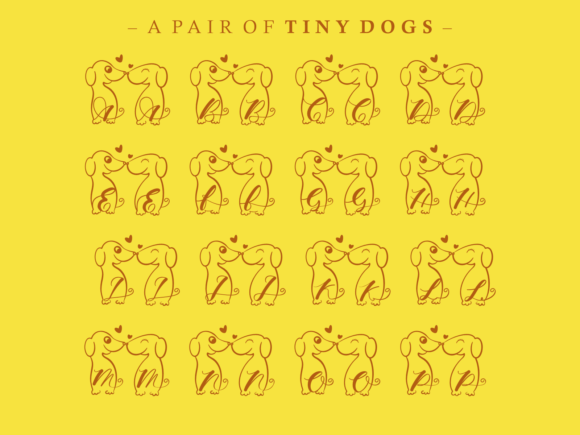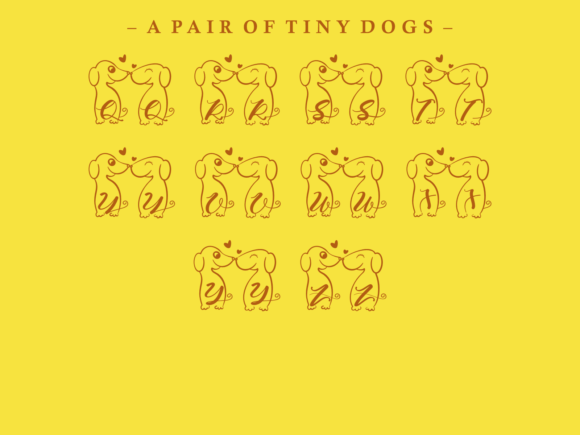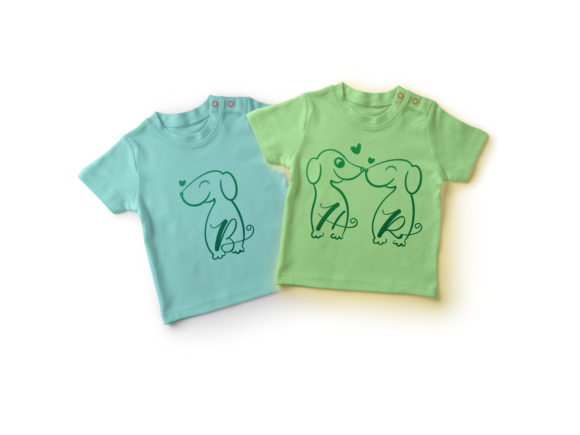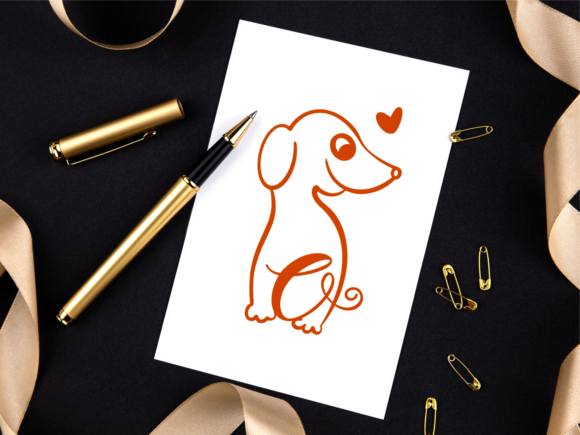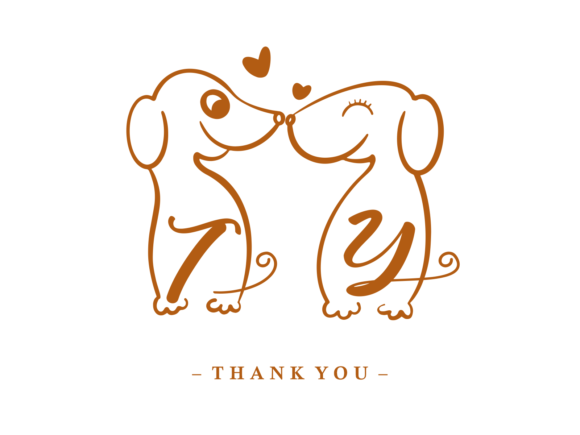
A Pair of Tiny Dogs Font: The Cutest Decorative Font for Your Designs
Are you tired of using the same old fonts for your designs? Look no further! A Pair of Tiny Dogs Font is here to add a touch of cuteness to your creations. This adorable decorative font is perfect for designers and crafters who want to add a personal touch to their work. In this article, we’ll explore the features of A Pair of Tiny Dogs Font and how you can use it to take your designs to the next level.
What is A Pair of Tiny Dogs Font?
A Pair of Tiny Dogs Font is a unique and charming decorative font that features, you guessed it, a pair of tiny dogs! This font is probably the cutest decorative font you will ever come across, and it’s perfect for adding a playful touch to your designs. The font is made up of adorable dog illustrations that are sure to bring a smile to anyone’s face.
Features of A Pair of Tiny Dogs Font
- Cute and Playful Design: The font features a pair of tiny dogs that are sure to add a touch of cuteness to your designs.
- Decorative and Unique: A Pair of Tiny Dogs Font is a decorative font that will set your designs apart from the rest.
- Versatile: This font can be used for a variety of design projects, from school and children designs to pet decorations and more.
Uses of A Pair of Tiny Dogs Font
A Pair of Tiny Dogs Font is a versatile font that can be used for a variety of design projects. Here are some ideas to get you started:
- School and Children Designs: Add a playful touch to your school and children designs with A Pair of Tiny Dogs Font. Use it to create fun and colorful posters, flyers, and brochures.
- Pet Decorations: If you’re a pet lover, A Pair of Tiny Dogs Font is the perfect font for you. Use it to create adorable pet decorations, such as pet tags, collars, and leashes.
- Greeting Cards and Invitations: Add a personal touch to your greeting cards and invitations with A Pair of Tiny Dogs Font. Use it to create cute and playful designs that are sure to delight.
- Digital Art and Illustrations: A Pair of Tiny Dogs Font is perfect for digital art and illustrations. Use it to add a touch of cuteness to your digital creations.
Tips for Using A Pair of Tiny Dogs Font
Here are some tips for using A Pair of Tiny Dogs Font:
- Use it Sparingly: A Pair of Tiny Dogs Font is a decorative font, so use it sparingly to add emphasis to your designs.
- Experiment with Colors: Experiment with different colors to add depth and interest to your designs.
- Pair it with Other Fonts: Pair A Pair of Tiny Dogs Font with other fonts to create a unique and interesting design.
A Pair of Tiny Dogs Font is a unique and charming decorative font that is sure to add a touch of cuteness to your designs. With its playful design and versatile uses, this font is perfect for designers and crafters who want to add a personal touch to their work. Add A Pair of Tiny Dogs Font to your library today and let your imagination run wild!
A Pair of Tiny Dogs Font is probably the cutest decorative font you will ever come across. Add this lovely font to your library and employ it to school or children designs, pet decorations and so much more. The only limit is your imagination!